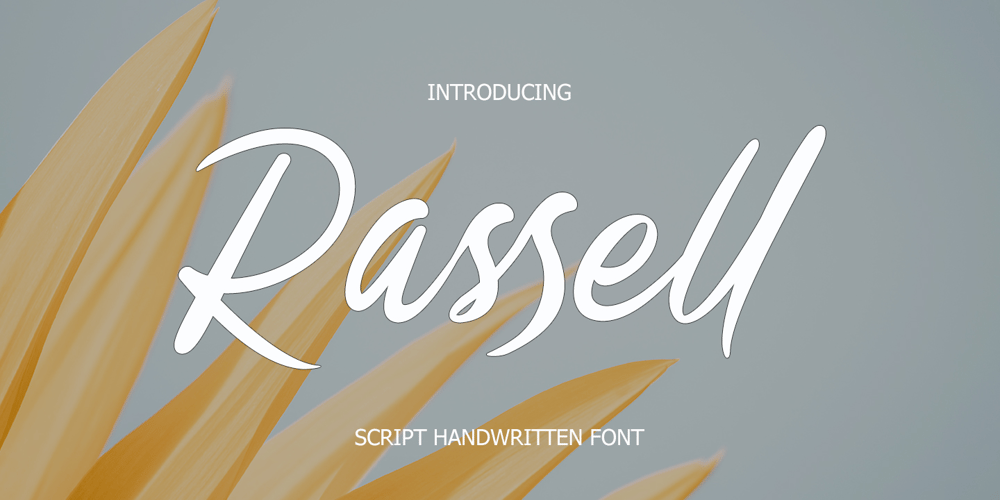
Rassell Font Family was designed by Hajid Hikmatiyar and published by Hikhcreative. Rassell contains 1 styles and family package options. Rassell is a chic handwritten font. It has a thin modern calligraphy look making it perfect for branding and digital designs. Use this font for logos, social media, websites, blogs, instagram, business cards, branding, and more!